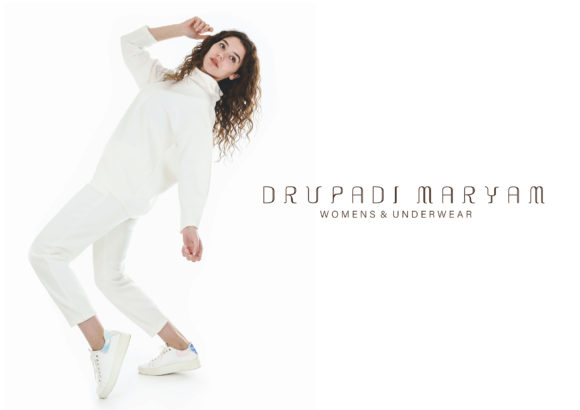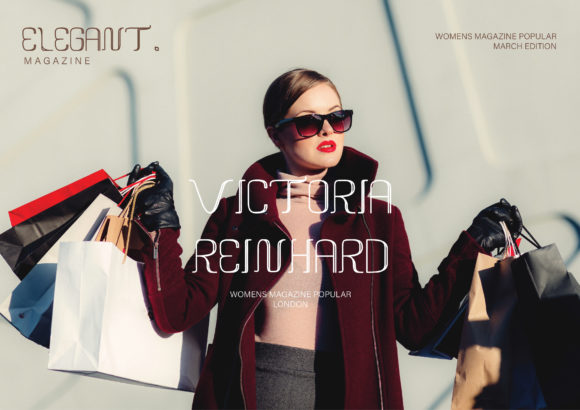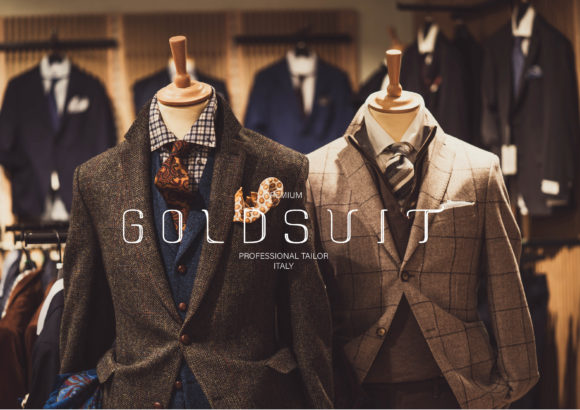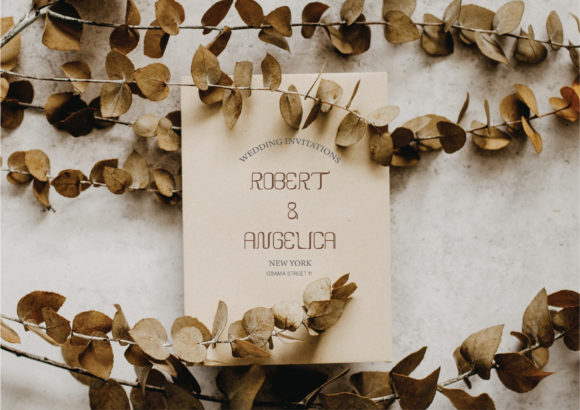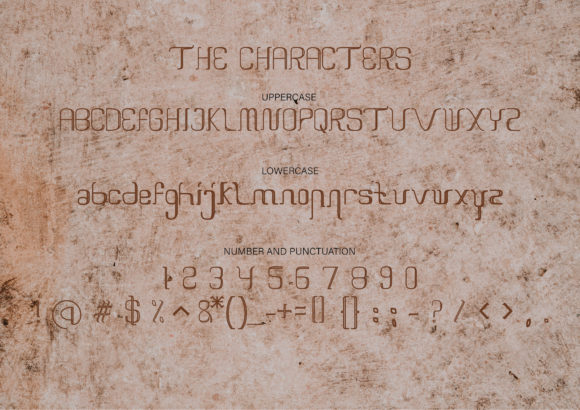
Introduction to Java Jaya Font
Have you ever been browsing through a quaint Asian restaurant, and the menu catches your eye with its vibrant colors and unique typography? That’s exactly what inspired us to dive into the world of Japanese-inspired fonts – and we’re thrilled to introduce you to the Java Jaya Font. This stunning display font is a game-changer for designers looking to add an extra layer of creativity to their projects.
Whether you’re working on a food menu, a poster flyer, or a print project, the Java Jaya Font is an excellent choice. Its unique style and high-quality design make it a valuable resource for designers. And the best part? It’s available for free download, making it an accessible design resource for everyone. With its transparent background and versatility, the Java Jaya Font is ready to elevate your creative project to the next level.
Key Features of Java Jaya Font
- Unique and stylish font with a transparent background, perfect for adding a touch of elegance to your design.
- Perfect for use in logos, branding materials, and other creative projects where a unique and stylish font is required.
Honest Review: Java Jaya Font
I recently stumbled upon the Java Jaya Font while searching for a free download for my design project. As a designer, I’m always on the lookout for high-quality fonts that can add a touch of elegance to my work. The Java Jaya Font did not disappoint.
What works well: ✨ The font has a unique, creative flair that makes it perfect for projects that require a touch of personality. The design is clean and modern, with a clear and easy-to-read style. The transparent background makes it easy to use with various design elements.
However, there are a few limitations to consider: ⚠️ The font may not be suitable for projects that require a more traditional or conservative look. Additionally, the font may not be as versatile as some other fonts on the market.
Overall, I’m impressed with the Java Jaya Font and would recommend it to designers working on creative projects. With its unique design and high-quality construction, it’s a valuable addition to any design resource library.
- Unique and creative design
- Clean and modern style
Java Jaya Font is commonly used in creative projects that require a unique and eye-catching font, such as logos, branding materials, and marketing materials. Its transparent background makes it a popular choice for overlaying text on images.